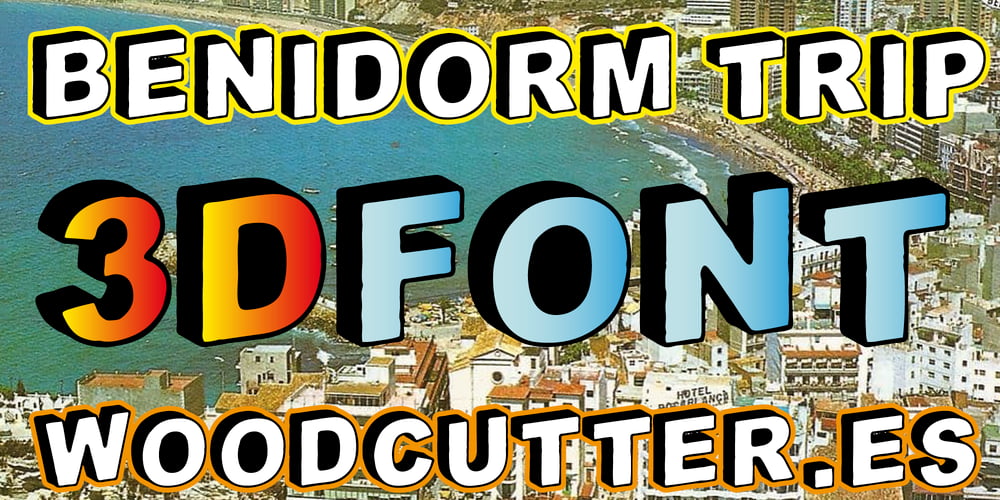
Benidorm Trip
Benidorm Trip font
Benidorm Trip Font Family was designed by Jordi Manero and published by Woodcutter. Benidorm Trip contains 1 styles and family package options. “Benidorm Trip” is an uppercase typeface that evokes a retro vibe with its 3D shadow tilted to the left. With a distinctly vintage appearance, this font captures the essence of the golden age of coastal tourist destinations. Its bold and three-dimensional design is ideal for projects looking to convey nostalgia, fun, and a touch of classic style. “Benidorm Trip” is perfect for posters, logos, or any design that needs a striking and personality-filled typeface.